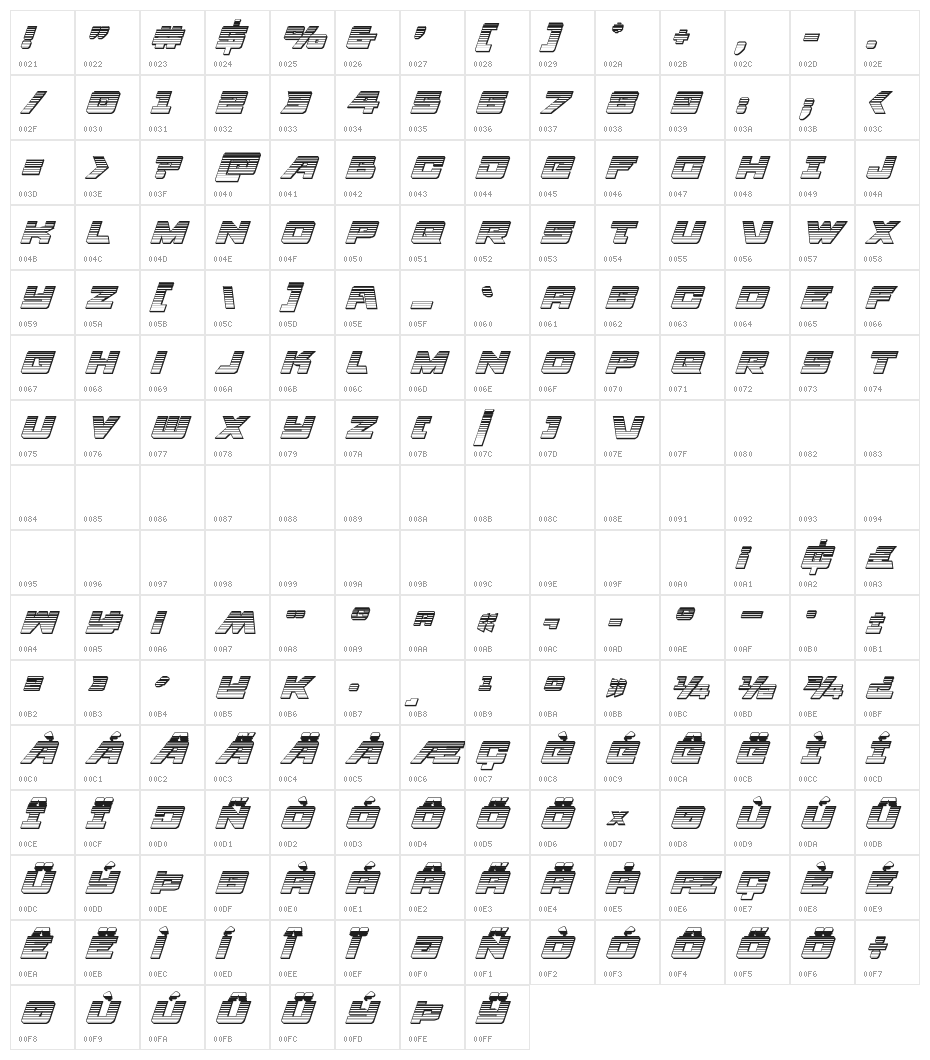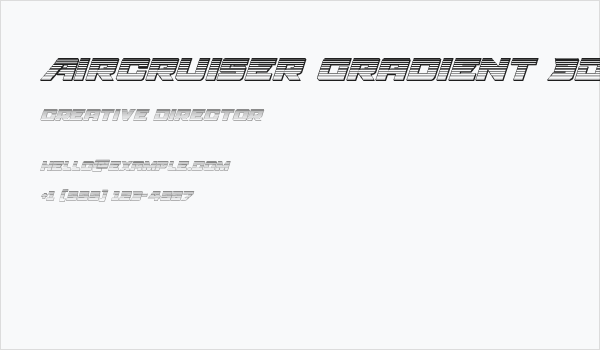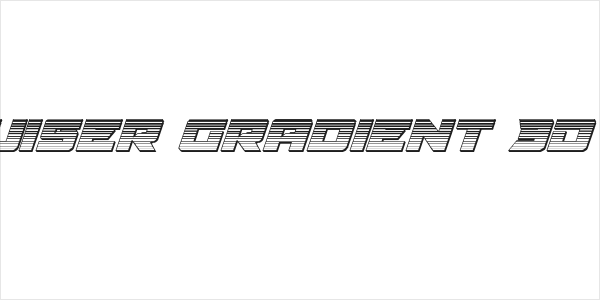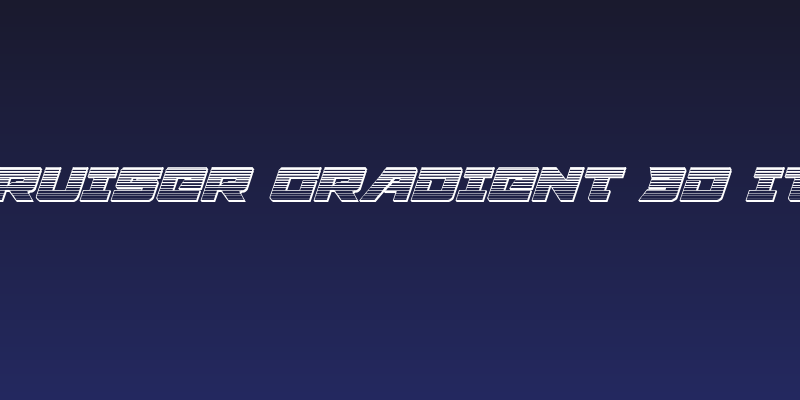
Aircruiser Gradient 3D Italic Font
Aircruiser Gradient 3D Italic Description
This font features a bold, futuristic design with a 3D gradient effect that gives it a dynamic and modern appearance. The characters are italicized, adding a sense of motion and speed. Each letter is composed of parallel lines that create a layered, dimensional look, enhancing its visual impact. The font is highly stylized, making it suitable for creative and eye-catching designs. Its unique structure and bold presence make it ideal for projects that require a standout typeface.
| Proposed Projects | Ideal for sci-fi themed posters, video game titles, futuristic branding, and technology-related advertisements. |